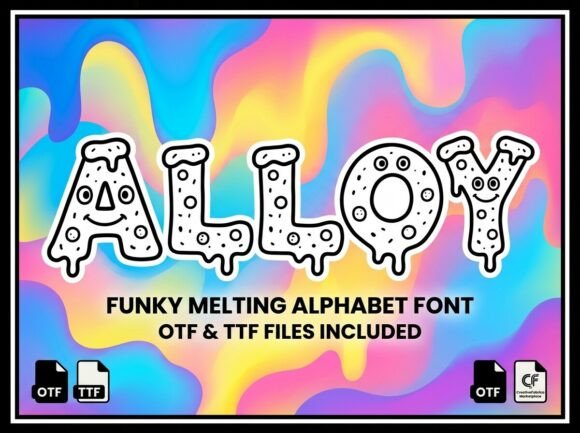
Introducing Alloy Font: Unleash the Psychedelic Vibes in Your Designs
Are you ready to add a dash of weirdness and wonder to your designs? Look no further than Alloy, a psychedelic display typeface that’s sure to capture the attention of your audience. This bold and eye-catching font is perfect for designers and crafters who want to create unique and memorable branding, packaging, posters, and social media headers.
The Inspiration Behind Alloy
Alloy is a hand-drawn typeface that embodies the spirit of psychedelic art. Its bold letterforms are rendered in a rhythmic, melting style that’s reminiscent of trippy visuals and surreal landscapes. The font features gooey drips, bubbly textures, and hidden smiling faces, giving it a playful and whimsical personality.
Key Features of Alloy Font
• Bold and eye-catching letterforms: Alloy’s bold letterforms are perfect for making a statement in your designs.
• Hand-drawn melting style: The font’s melting style gives it a unique and psychedelic look that’s sure to grab attention.
• Gooey drips and bubbly textures: The font’s textures and drips add a tactile and organic feel to your designs.
• Hidden smiling faces: The font’s playful personality is evident in the hidden smiling faces scattered throughout the letterforms.
Perfect for Independent Brands and Creatives
Alloy is the premier choice for independent streetwear branding, eccentric snack packaging, underground music festival posters, and high-impact social media headers. Its heavy illustrative weight and surreal personality make it perfect for brands and creatives who want to stand out from the crowd.
Use Cases for Alloy Font
• Streetwear branding: Alloy’s bold and eye-catching style is perfect for streetwear brands who want to make a statement.
• Snack packaging: The font’s playful and whimsical personality makes it perfect for eccentric snack packaging.
• Music festival posters: Alloy’s surreal and psychedelic style is perfect for underground music festival posters.
• Social media headers: The font’s bold and eye-catching style makes it perfect for high-impact social media headers.
Why Choose Alloy Font?
So why choose Alloy font for your next design project? Here are just a few reasons:
• Unique and memorable: Alloy’s bold and eye-catching style is sure to make your designs stand out.
• Playful and whimsical: The font’s playful personality is perfect for brands and creatives who want to add a touch of fun to their designs.
• Versatile: Alloy can be used for a wide range of design projects, from branding and packaging to posters and social media headers.